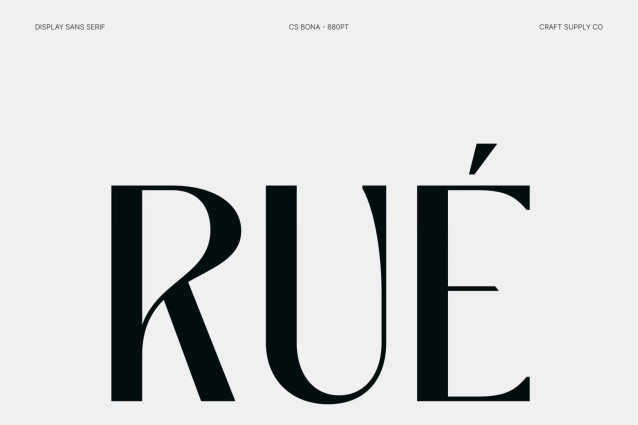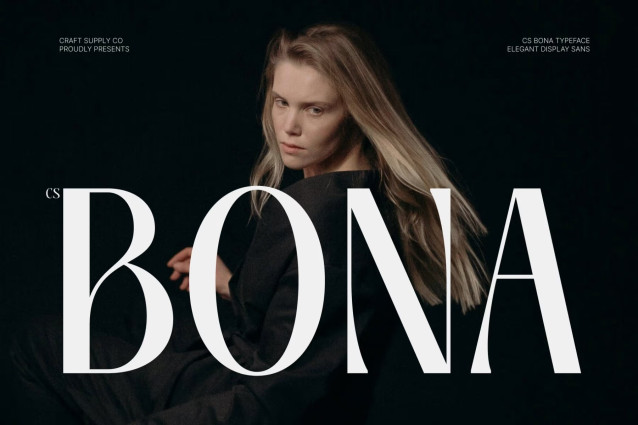
CS Bona – Modern Sans Serif Font
CS Bona – Modern Sans Serif with Clean Elegant Sophistication
Modern Sans Serif with Refined Contemporary Style
This is a modern sans serif font designed to express clarity, elegance, and contemporary sophistication. With its clean structure and balanced proportions, this typeface creates a polished visual presence that feels fresh, professional, and effortlessly stylish. It is crafted for designers who seek typography that combines simplicity with a refined modern character.
Clean Forms with Sophisticated Appeal
The defining beauty of this font lies in its sleek letterforms and carefully considered geometry. Every character is designed to deliver excellent readability while maintaining a graceful and elegant appearance. The clean lines and subtle refinement create a harmonious visual rhythm that enhances both digital and print applications.
Fresh Character with Timeless Versatility
This font balances modern minimalism with a sophisticated touch, making it adaptable across a wide range of creative projects. Its fresh personality brings contemporary energy to layouts while preserving a timeless quality that ensures long-lasting visual appeal. The result is a typeface that feels both current and enduring.